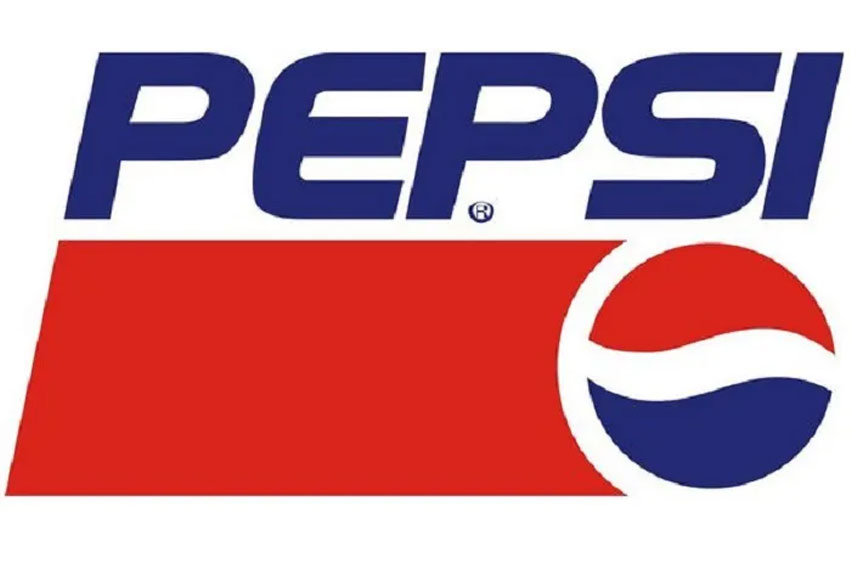
Pepsi Font
Pepsi Font is a modern sans serif font of the Adidas font but with its own bold flair when showcased in visuals. This exceptional font lends itself well to logo creation thanks to its clarity and striking appearance. Like the Pepsi logo grabs attention this font can do wonders for any logo design you have in mind, for your brand.